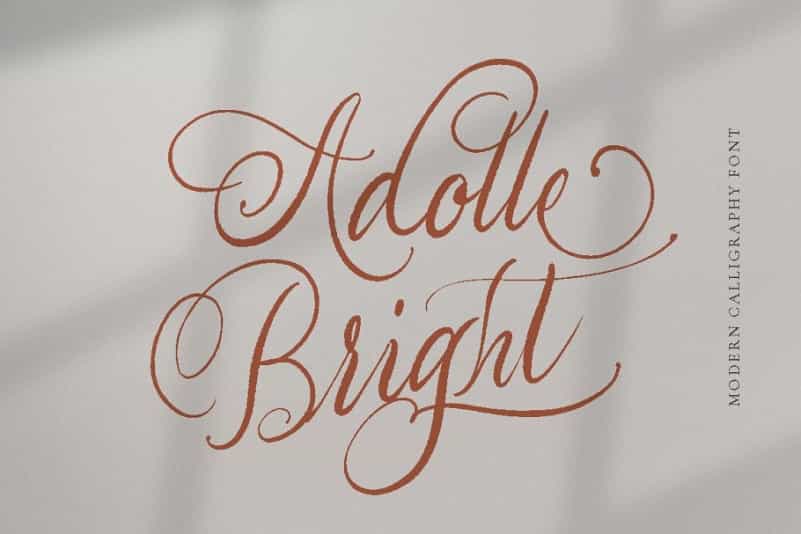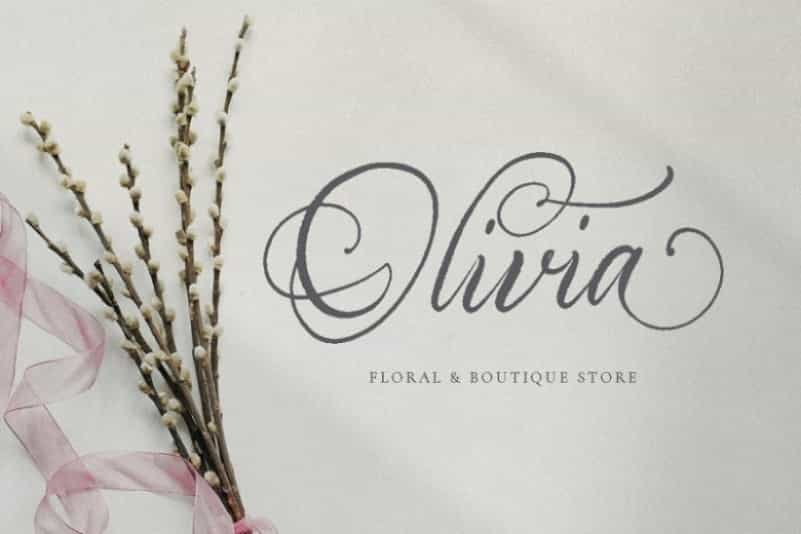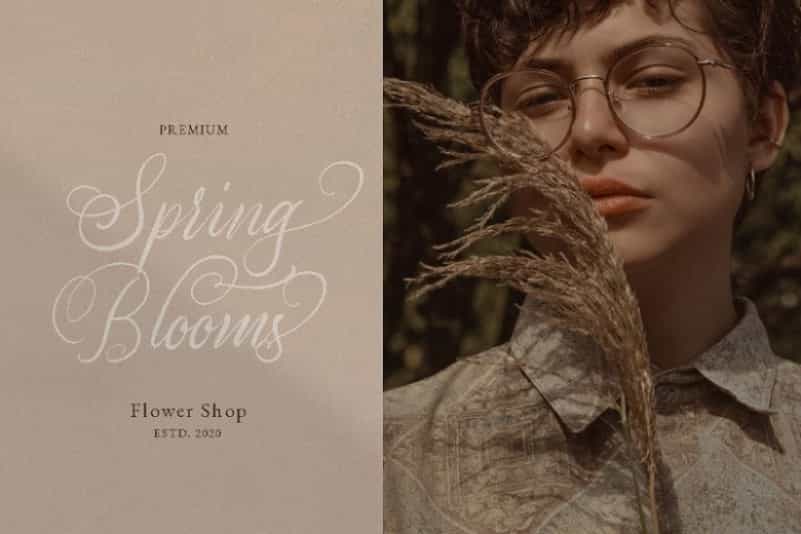
Adolle Bright is a script font, with a modern calligraphy style and a lively baseline! It looks stunning on invitations greeting cards, branding materials, business cards, quotes, posters and more!